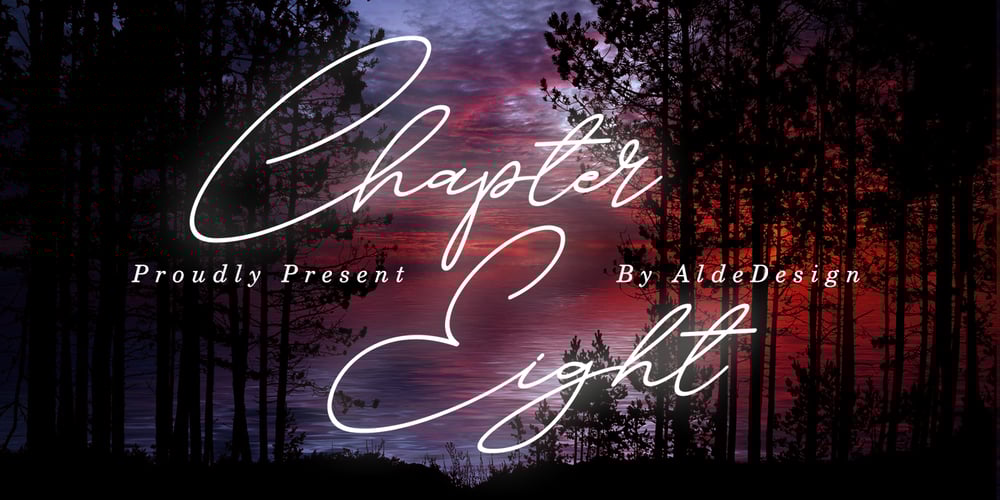
Chapter Eight Font Family was designed by Alde Saputro and published by Aldedesign. Chapter Eight contains 2 styles and family package options. Chapter Eight is a stylish signature font that is inspired by modern photography. It’s easy to use, to create a stunning watermark for your photos, invitations, branding.It also works great as a business signature or on other branding materials.- PUA encoded = Accessible in Adobe Illustrator, Adobe Photoshop, Adobe InDesign, even work on Microsoft Word.- PUA Encoded Characters – Fully accessible without additional design software.How to access alternate glyphs? you can see it on this link: http://goo.gl/1vy2fv